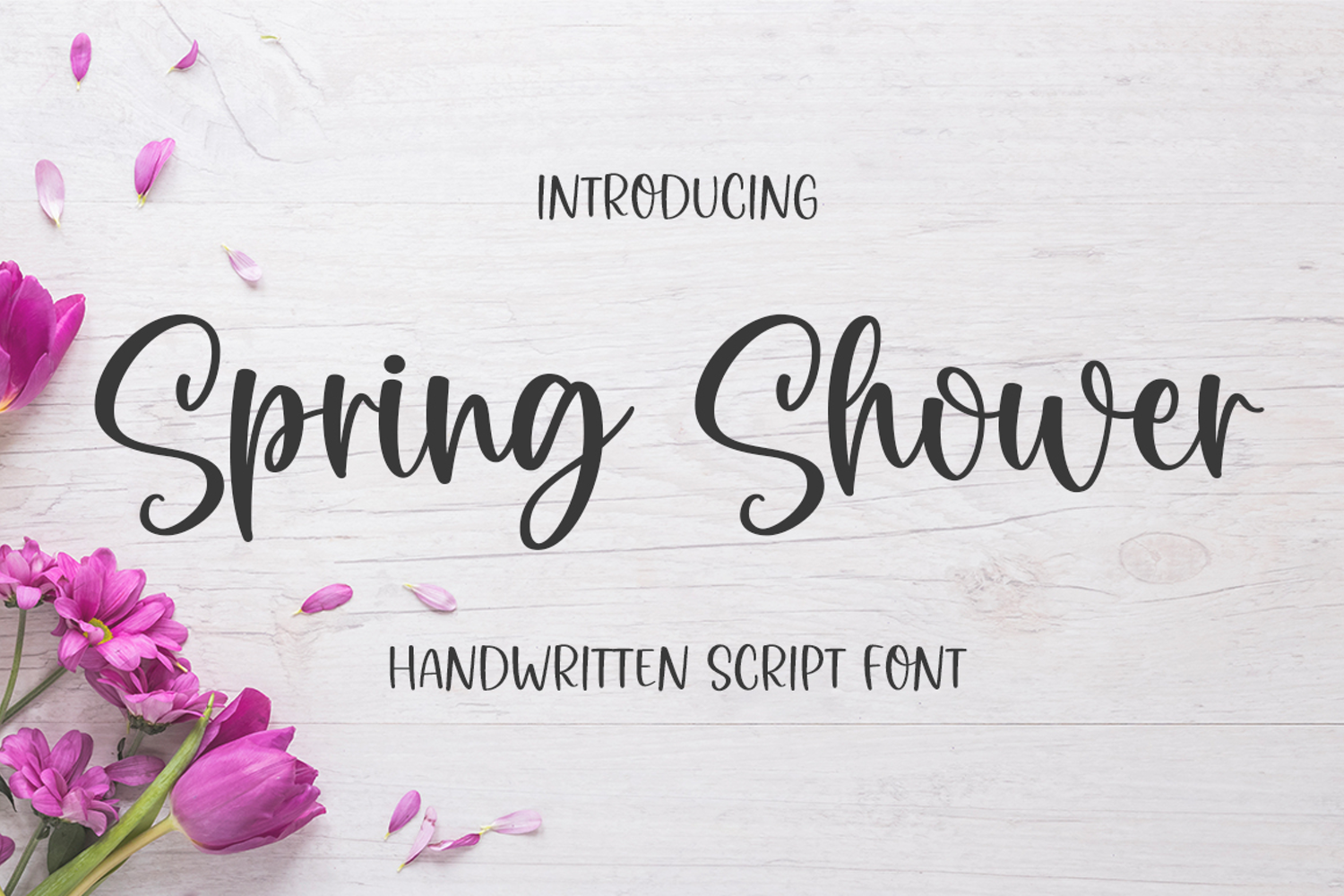
Spring Shower
Spring Shower is a delicate, elegant, and flowing handwritten font. It has beautiful and well-balanced characters and as a result, it matches a wide pool of designs.
Graphix Line Studio